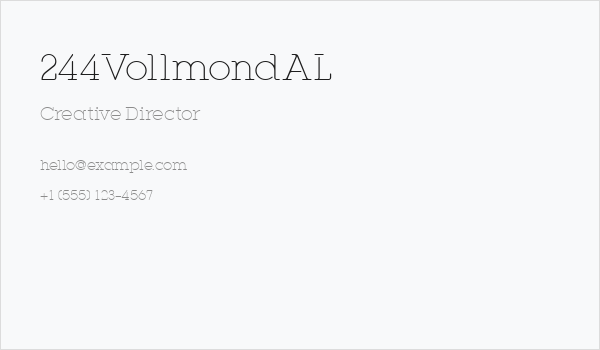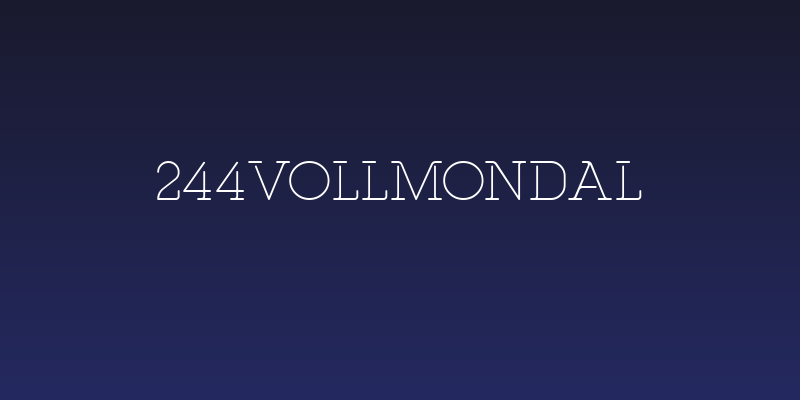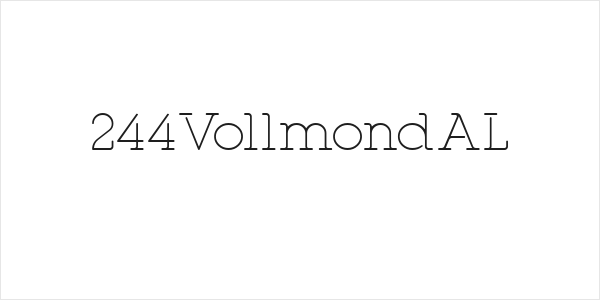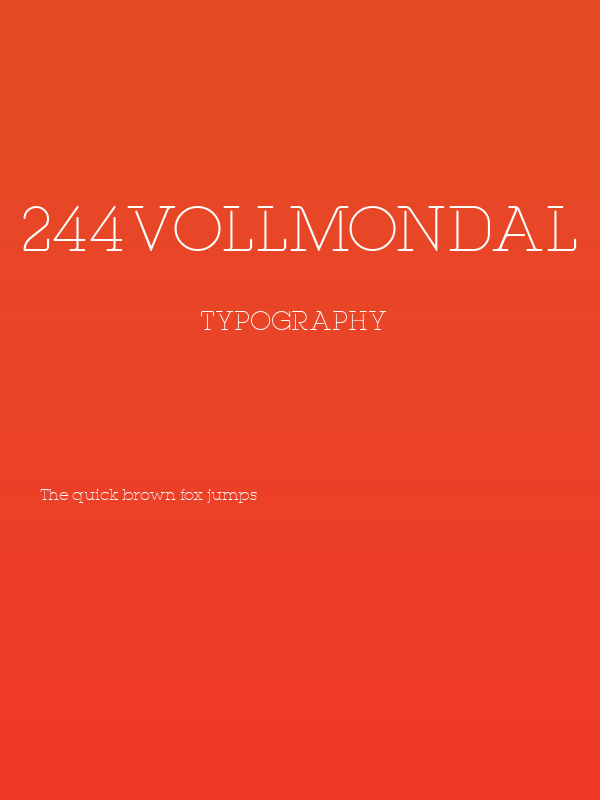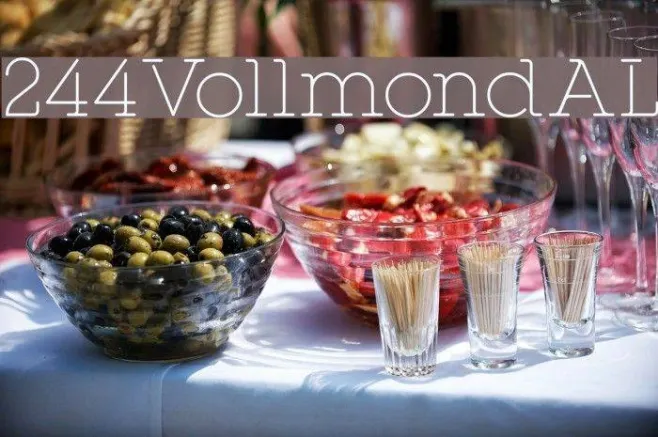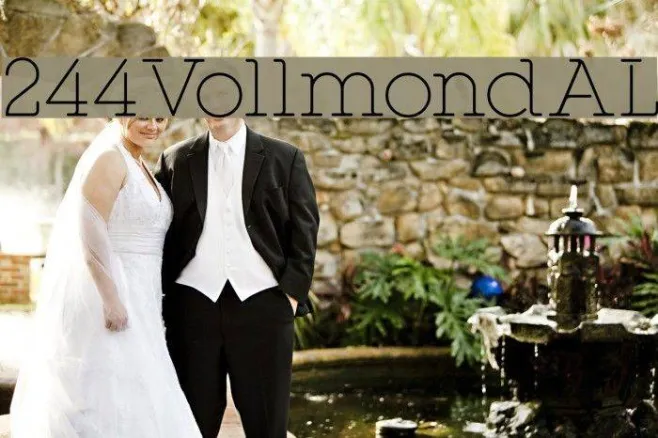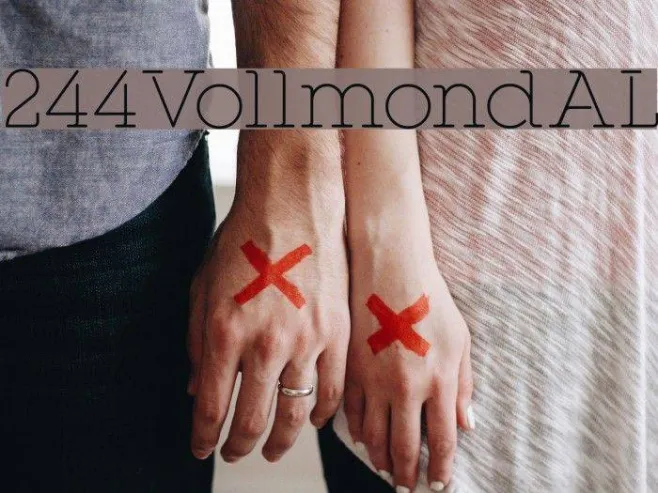
244VollmondAL Font
244VollmondAL Description
This font features a clean and modern design with a geometric structure. The characters are evenly spaced, providing a balanced and harmonious appearance. The uppercase letters are bold and commanding, while the lowercase letters maintain a consistent style that complements the overall look. The numerals are clear and easy to read, making them suitable for various applications. Special characters are included, offering versatility for different design needs. The font's simplicity and elegance make it ideal for contemporary projects.